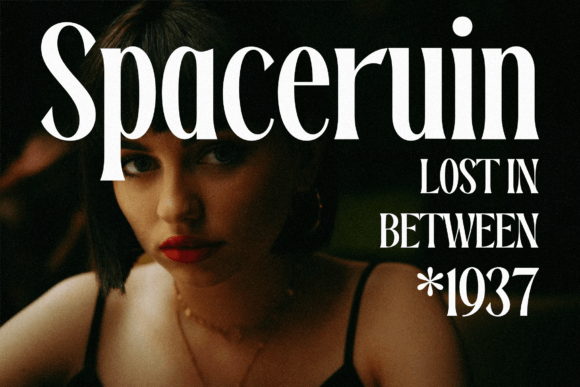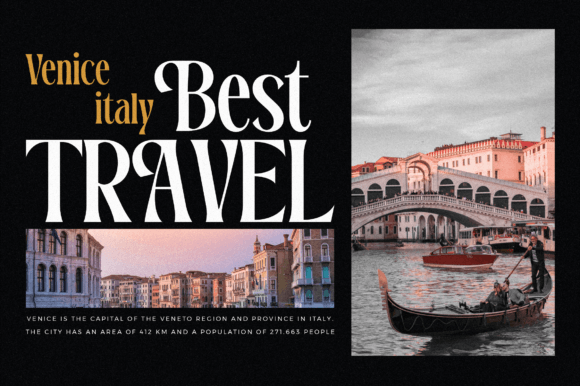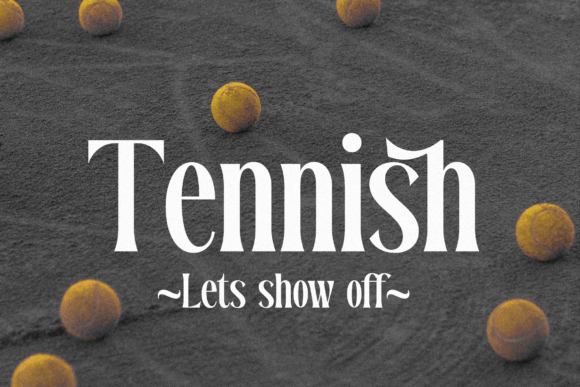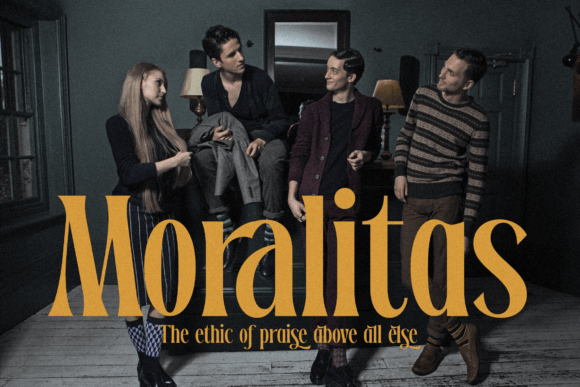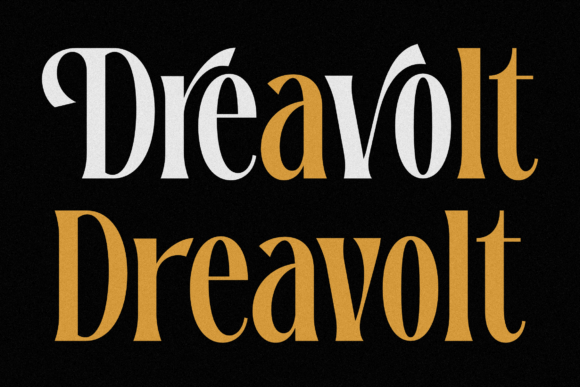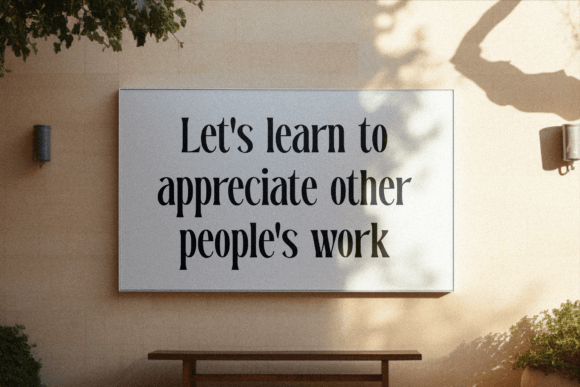
Discover the Elegance of Dreavolt Font: A Modern Classic
As a designer, I’ve had my fair share of moments where finding the perfect font felt like searching for a needle in a haystack. I recall working on a luxury brand project, needing a serif font that exuded elegance and sophistication. That’s when I stumbled upon the Dreavolt Typeface, created by Storytype. This beautiful font has been a game-changer for me, and I’m excited to share my experience with you.
A Personal Review: What I Love About Dreavolt
Here’s what makes Dreavolt a standout font:
- ✨ Unique Style: Dreavolt boasts a modern and classic look that’s hard to find in serif fonts.
- ✅ Elegant and Luxurious: Its sophisticated vibe makes it perfect for high-end branding, book titles, and movie posters.
- 🔥 Versatile: Use it for fashion brands, magazines, clothing designs, and more.
- 💻 Easy to Read: Despite its elegant look, Dreavolt remains highly legible, even at smaller sizes.
While Dreavolt is an excellent font, there are a few things to keep in mind:
- 🤔 Glyph Variety: Some users might find the glyph selection a bit limited compared to other premium fonts.
- ⚠️ Overuse: As with any elegant font, using Dreavolt excessively can make your design feel overly luxurious or even pretentious.
The Story Behind Dreavolt: Designer Inspiration
Storytype, the creator of Dreavolt, aimed to craft a font that balances modernity with classic elegance. Inspired by traditional serif fonts, they infused Dreavolt with unique stylistic elements to make it stand out in the world of typography. The result is a versatile font that suits a wide range of design needs.
Q: What makes Dreavolt suitable for luxury brands?
A: Dreavolt’s elegant and sophisticated design, combined with its modern look, makes it an excellent choice for luxury brands looking to convey high-end quality.
Q: Can I use Dreavolt for body text?
A: While Dreavolt is elegant and highly legible, it’s primarily designed for headlines and titles. For body text, consider pairing it with a more straightforward serif font.
Q: Does Dreavolt support OpenType features?
A: Yes, Dreavolt supports OpenType features, including stylistic alternates and glyphs, which can be accessed in compatible design software like Adobe Photoshop and Illustrator.
Q: Is Dreavolt suitable for digital use?
A: Absolutely! Dreavolt’s clear and elegant design makes it suitable for both print and digital applications, from website headers to social media graphics.